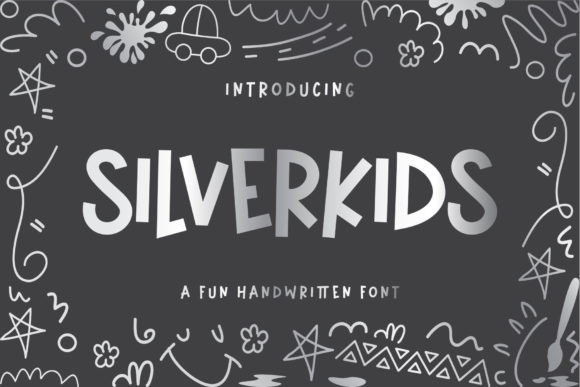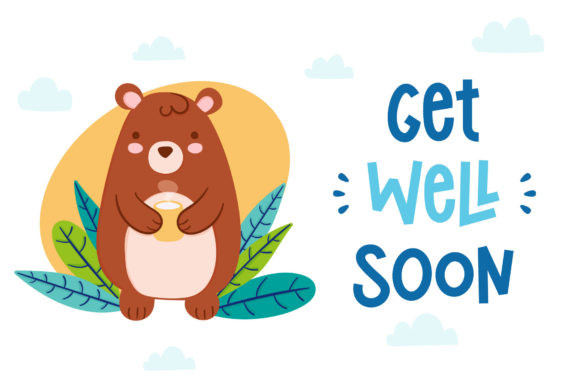
Silverkids Font
Silverkids is a sweet, fun and cute handwritten font. Clean and soft, this font is the perfect fit for all of your crafty DIY projects, cricut, logos, branding, social media, and any project that requires a personal look.